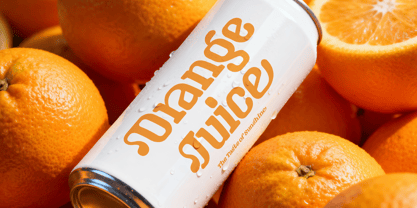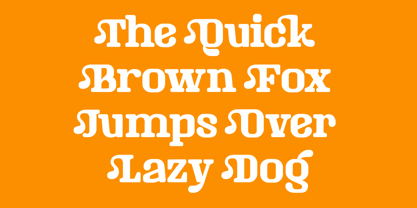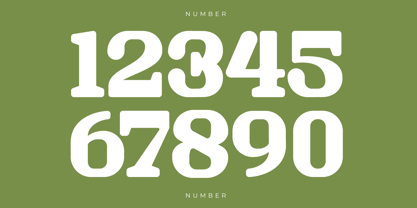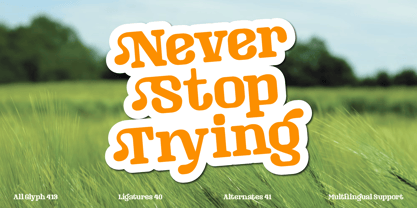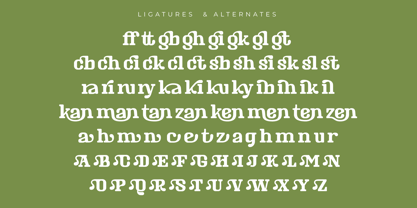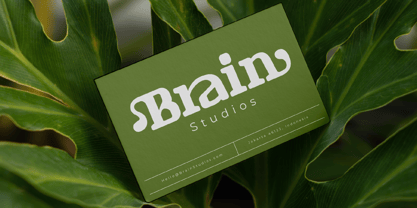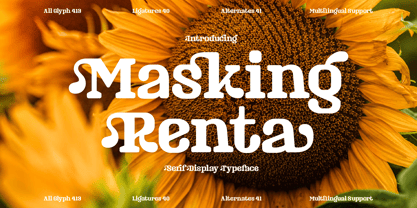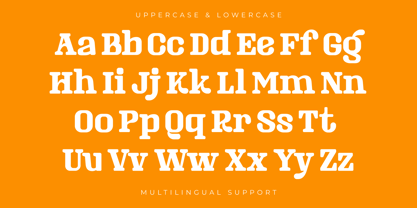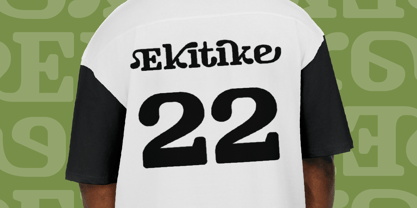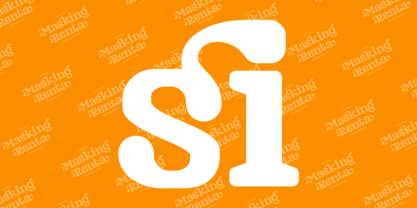
Masking Renta
by Risma Type
The Masking Renta Font Family was designed by Risma Mulyasari and published by Risma Type. Masking Renta contains 2 styles and family package options.
Masking Renta is a refined Serif Display Typeface that embodies sophistication, confidence, and timeless beauty in modern typography. Featuring sharp serifs, smooth curves, and balanced proportions, this typeface offers a harmonious blend of classic elegance and contemporary style. Designed for high-impact visual applications, Masking Renta excels in luxury branding, editorial headlines, logos, packaging, fashion projects, and premium product designs. Each character is meticulously crafted to ensure strong readability while preserving a distinctive display personality. Whether you are creating a bold identity or enhancing a minimalist concept, Masking Renta provides a polished, expressive, and professional touch to any creative endeavor.